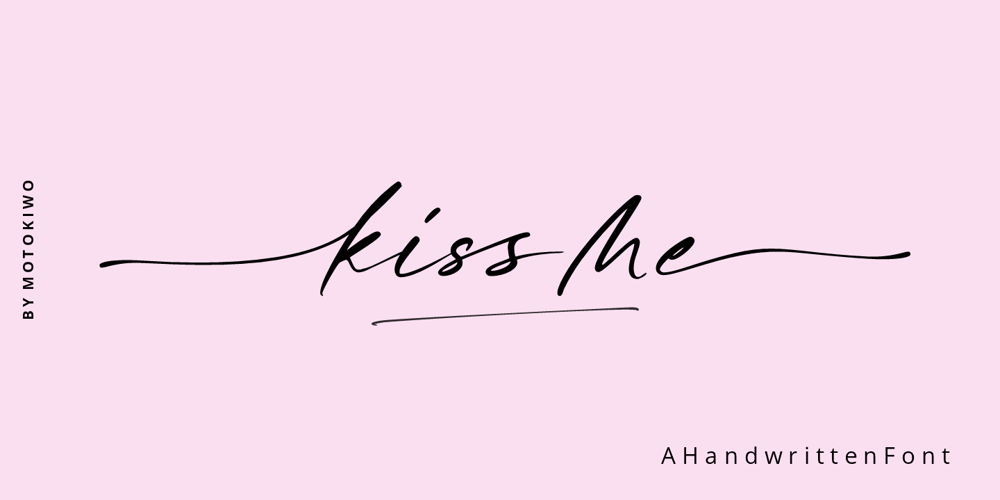
Kiss Me
Kiss Me Font Family was designed by Anton Cahyono and published by Motokiwo. Kiss Me contains 1 styles and family package options. Kiss Me script font is beautiful, a well designed for pretty girls. It’s handwritten font with a chic ballpoint strokes style that very suitable for romantic and passionate typography projects such as wedding, fashion logo, branding, or a signature text.